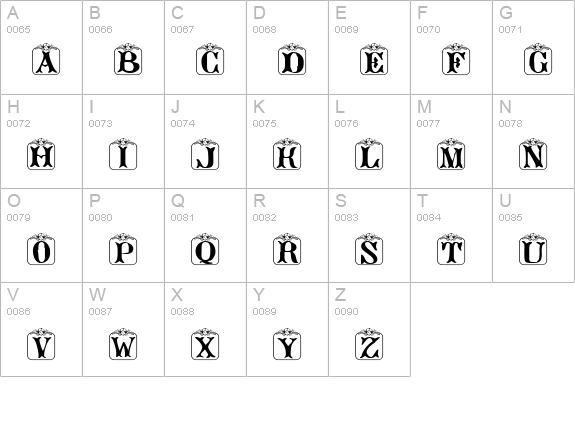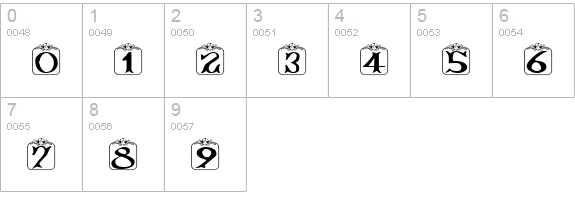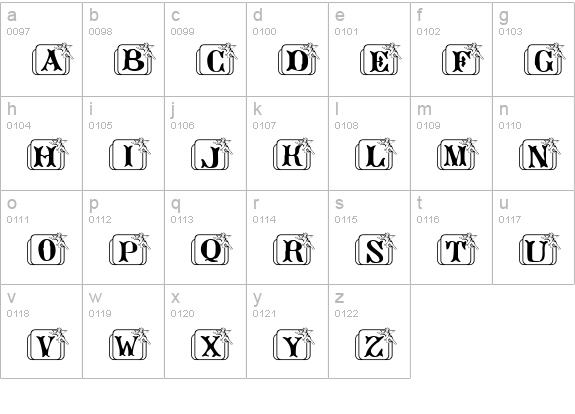
Angelots Font Details
Introducing Angelots font - a delicate and sophisticated typeface that exudes elegance and charm. With its intricate details and graceful curves, Angelots font is perfect for adding a touch of refinement to your design projects. Whether you're creating wedding invitations, branding materials, or editorial layouts, this font will elevate your work to a whole new level. Best of all, Angelots font is completely free to download at FontsMarket.com. That's right, you can enhance your designs with this exquisite font without spending a dime. Don't miss out on the opportunity to add a touch of class to your creations - download Angelots font today and let your creativity soar!